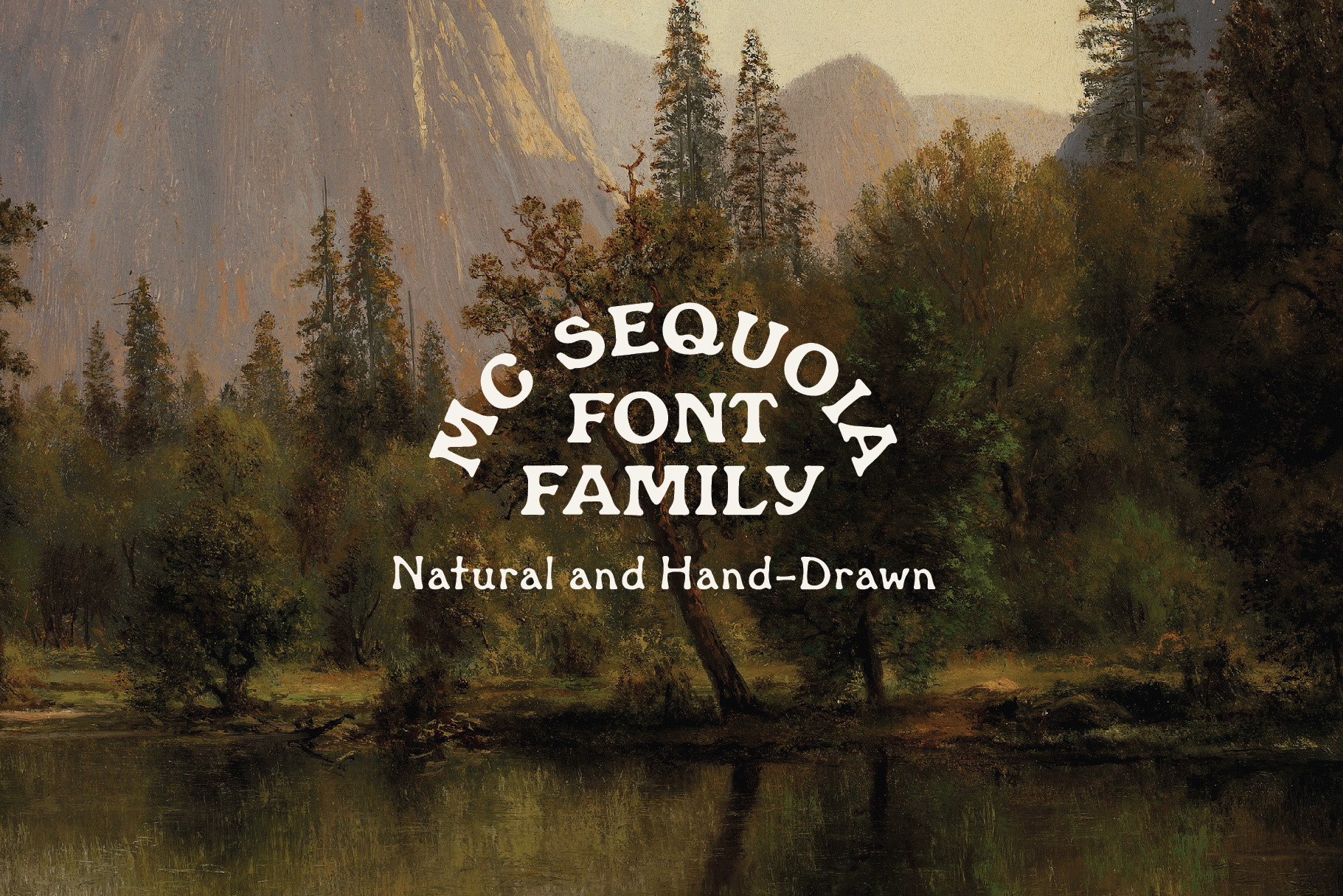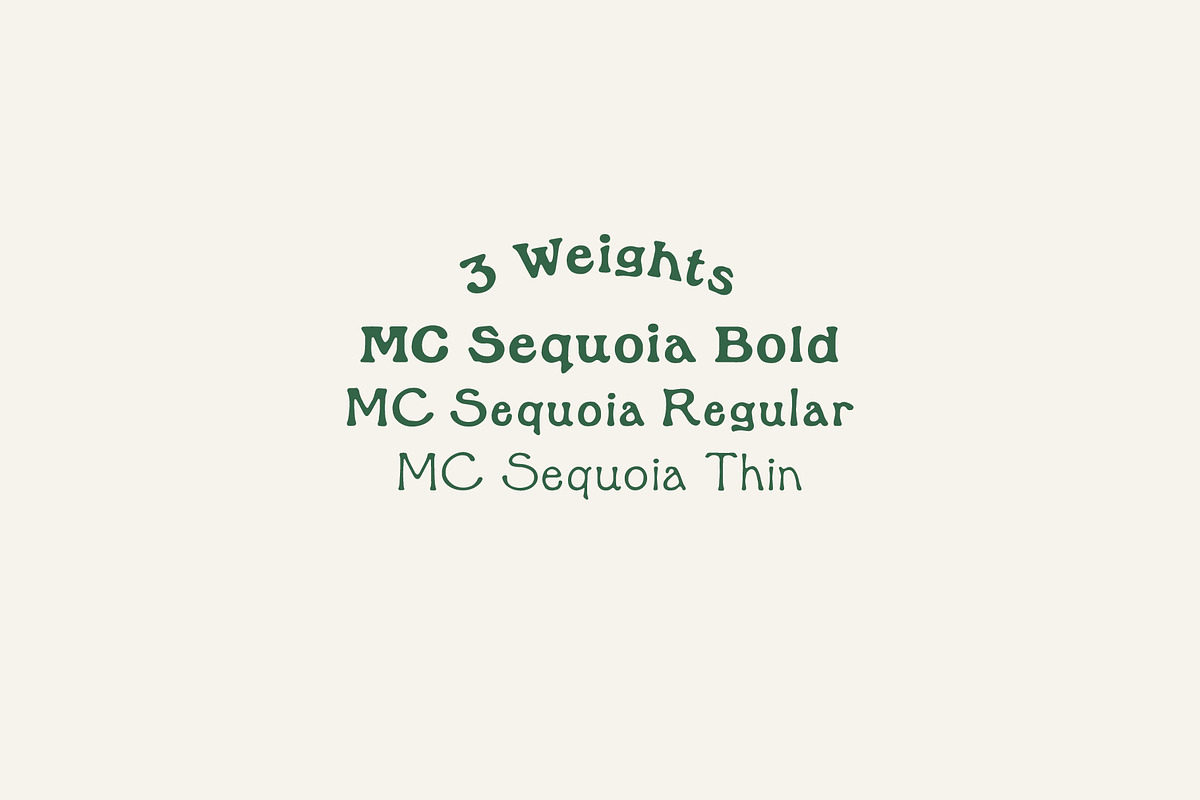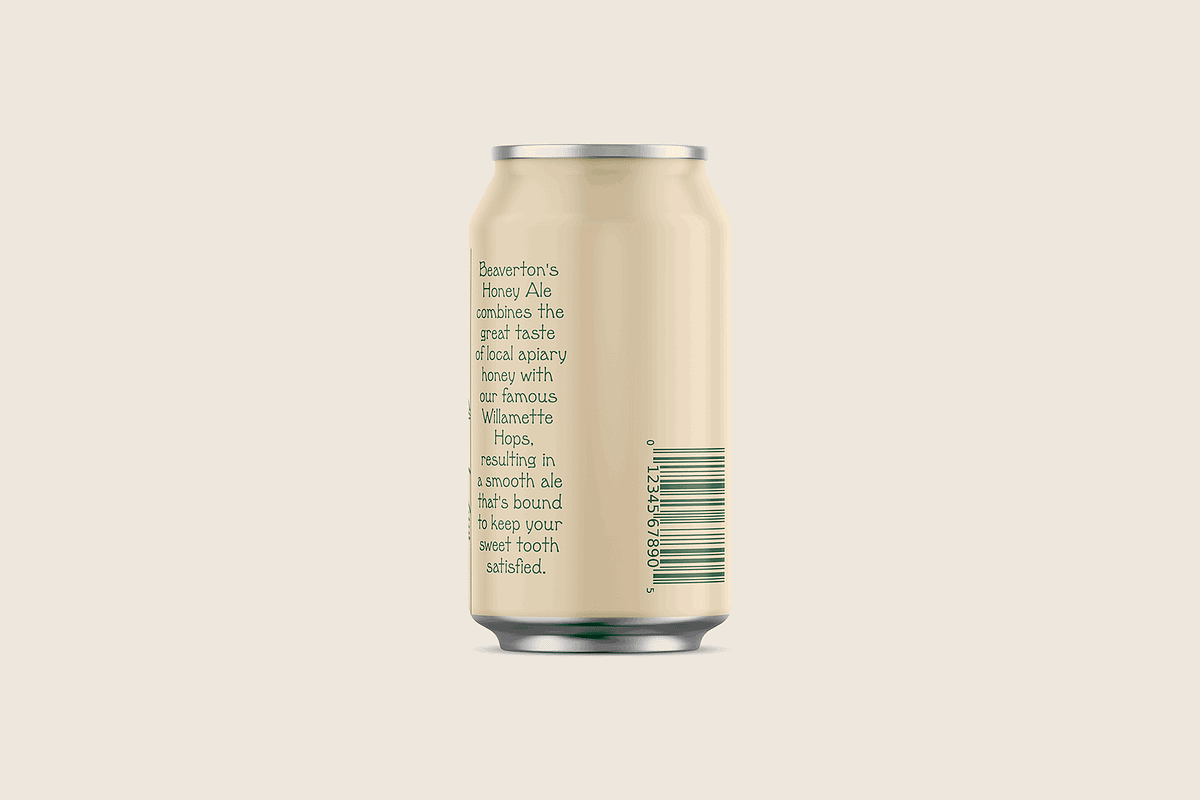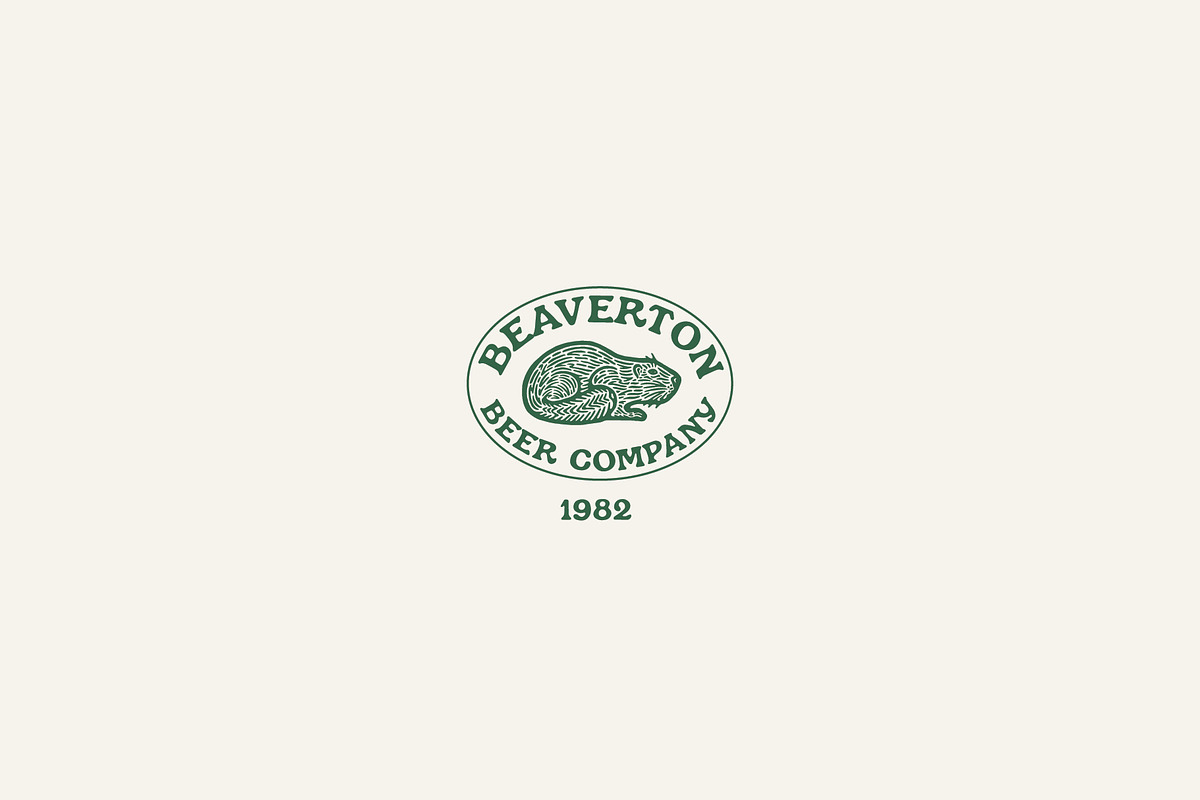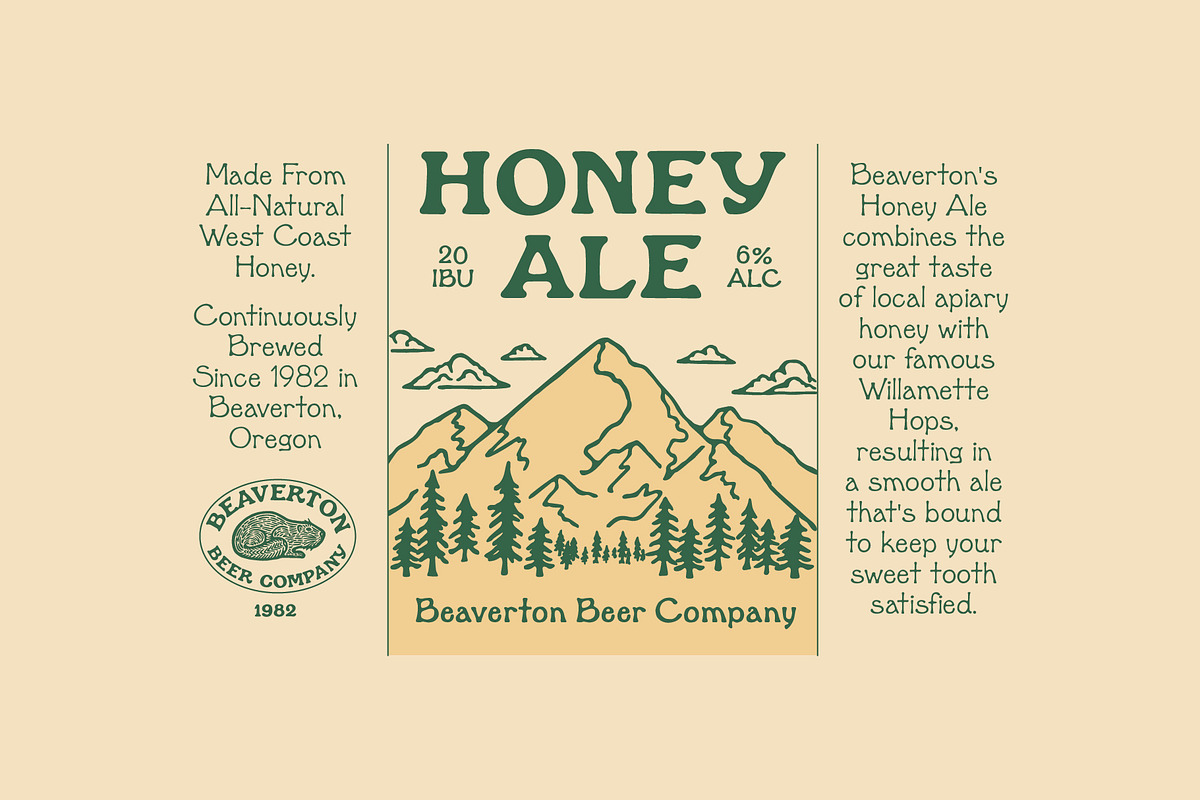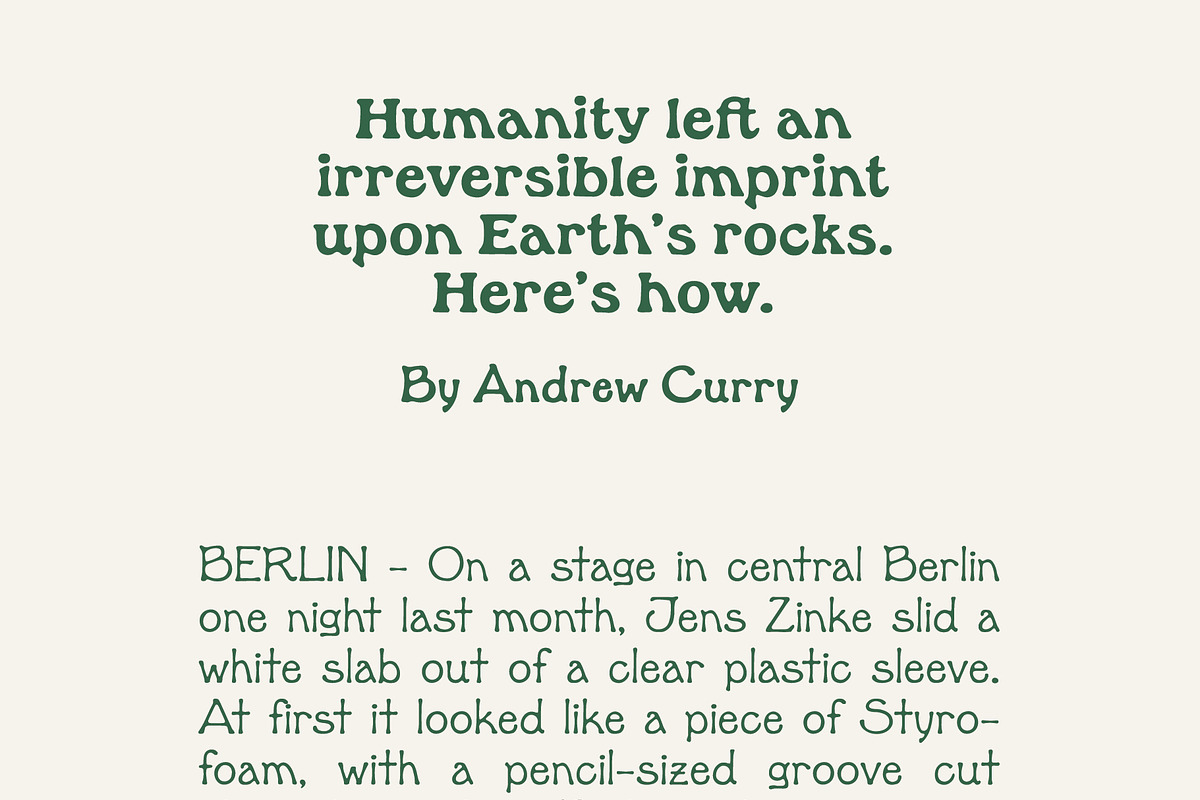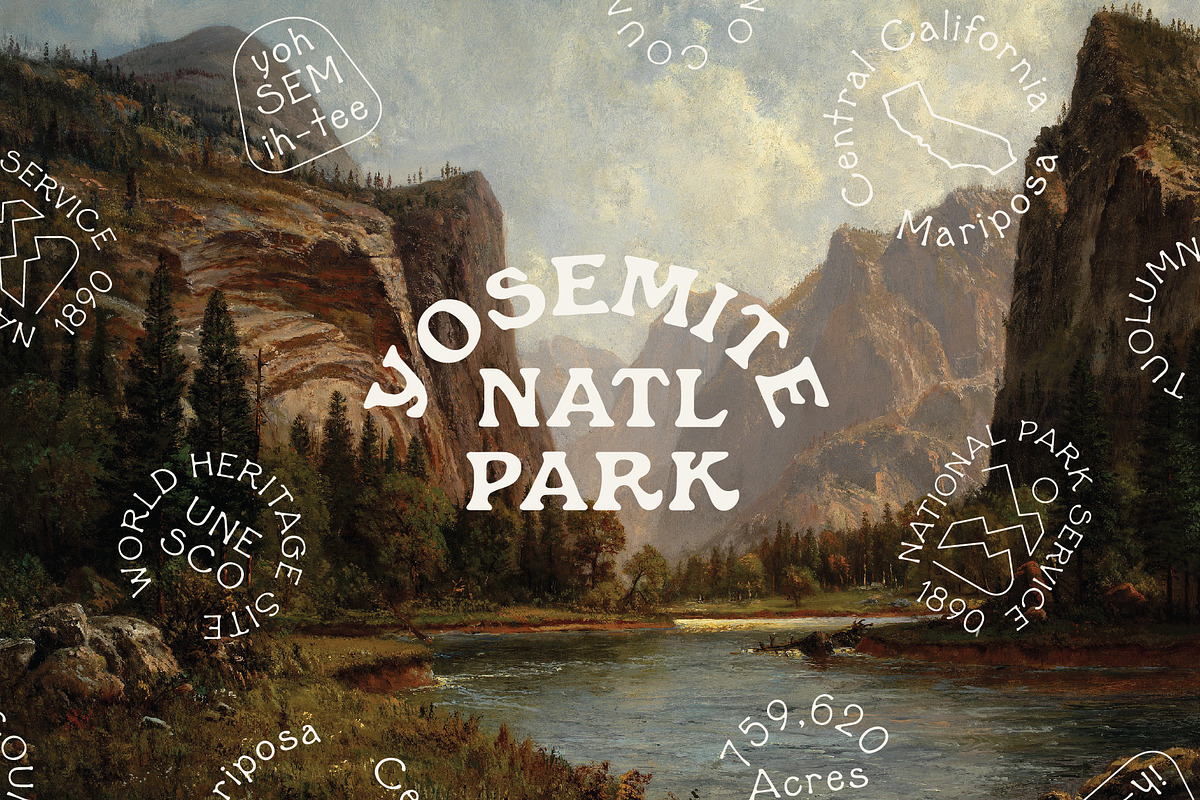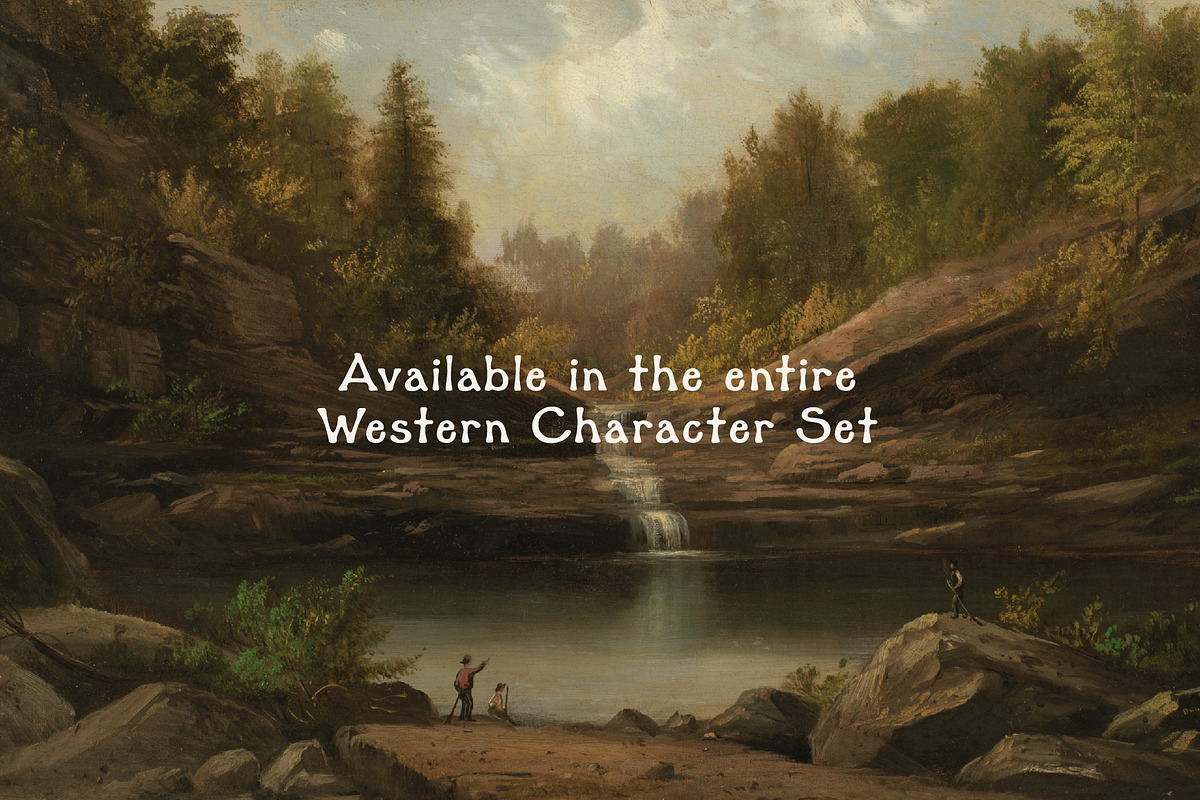
MC Sequoia - Font Family
Perfect for print, badges, posters, and labels looking to catch that outdoorsy feel. Comes with the entire Western Character Set.